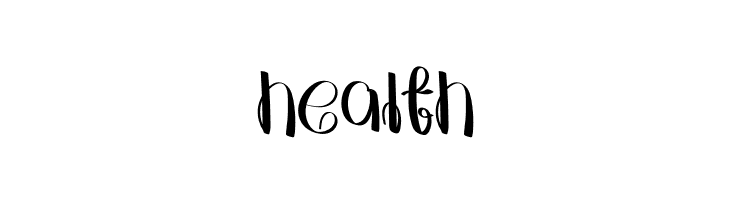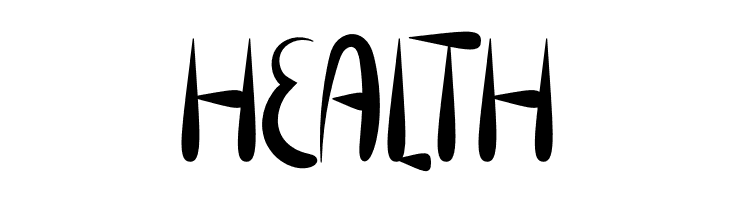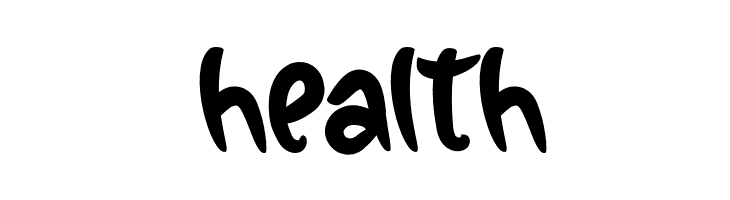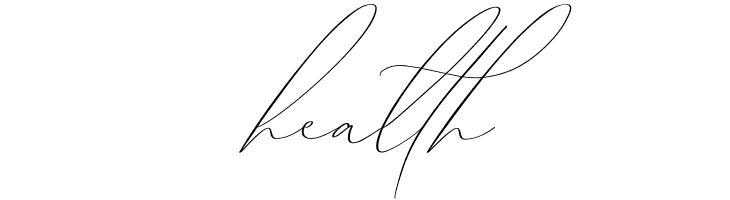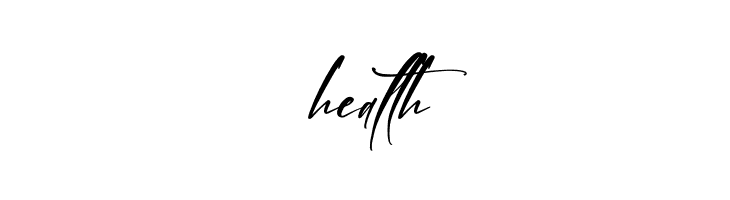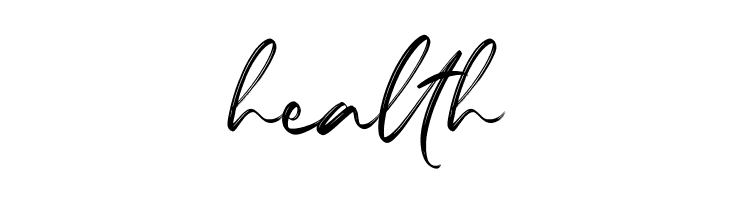
A whimsical and decorative font with playful curls and loops.
A dynamic, playful font with elongated strokes and a hand-drawn quality.
A playful, bold handwritten font with thick, rounded strokes and whimsical curves.
A fluid, cursive font with an elegant, handwritten style.
A graceful script font with flowing, cursive strokes and a modern calligraphic style.
A dynamic and elegant script font with flowing, cursive letterforms.
A modern, handwritten cursive font with smooth curves and dynamic slant.
A dynamic and flowing script font with elegant, cursive strokes.
A handwritten, cursive font with a natural and elegant flow.
An elegant, flowing script font with ornate uppercase and smooth lowercase letters.